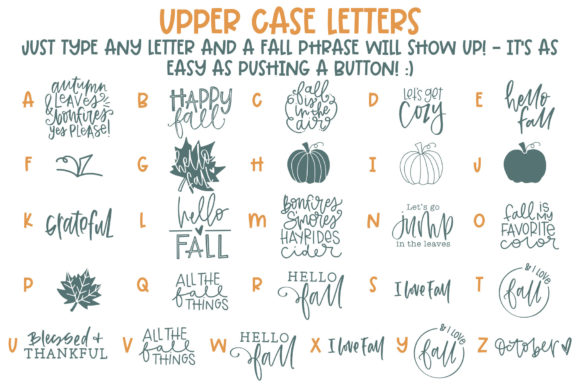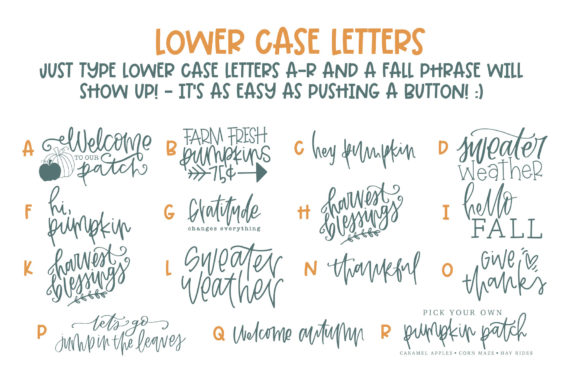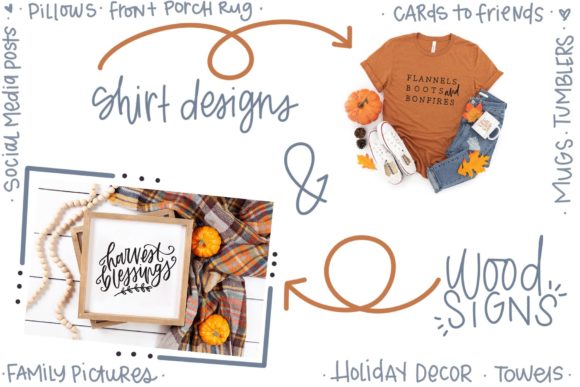
Fall Phrases Font: Add a Touch of Autumn Charm to Your Designs
As the leaves change colors and the air grows crisper, designers and crafters alike are on the lookout for inspiration to infuse their work with the cozy warmth of fall. If you’re searching for the perfect font to capture the essence of the season, look no further than Fall Phrases Font. This charming decorative font is sure to win your heart with its authentic feel and versatility.
What is Fall Phrases Font?
Fall Phrases Font is a beautifully designed decorative font that embodies the spirit of autumn. With its rustic and charming aesthetic, this font is perfect for creating a wide range of designs that evoke the feeling of fall. From invitations and stationery to social media posts and greeting cards, Fall Phrases Font is the ideal choice for adding a touch of seasonal charm to your work.
Key Features of Fall Phrases Font
- Authentic feel: Fall Phrases Font boasts an authentic, hand-crafted look that’s reminiscent of traditional autumnal designs.
- Decorative style: This font features intricate decorations and flourishes that add a touch of elegance to any design.
- Versatility: Use Fall Phrases Font to create a wide range of designs, from formal invitations to casual social media posts.
Uses for Fall Phrases Font
Fall Phrases Font is incredibly versatile, making it perfect for a variety of design projects. Here are just a few ideas to get you started:
- Invitations: Create beautiful, eye-catching invitations for fall events, such as harvest festivals, Halloween parties, and Thanksgiving gatherings.
- Stationery: Add a touch of autumn charm to your stationery with Fall Phrases Font. Perfect for writing letters, creating journals, or designing greeting cards.
- Social media posts: Use Fall Phrases Font to create stunning social media posts that showcase your design skills and capture the essence of the season.
- Greeting cards: Design adorable greeting cards for fall-themed occasions, such as Thanksgiving, Halloween, or fall birthdays.
Fall Phrases Font is a charming decorative font that’s sure to capture the hearts of designers and crafters alike. With its authentic feel, versatility, and ease of use, this font is perfect for creating a wide range of designs that evoke the warmth and coziness of fall. Whether you’re designing invitations, stationery, social media posts, or greeting cards, Fall Phrases Font is the ideal choice for adding a touch of autumn charm to your work.